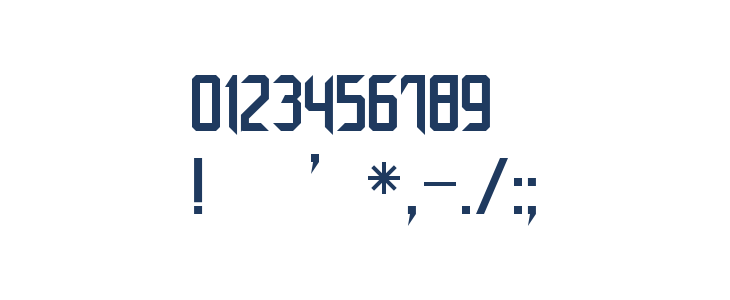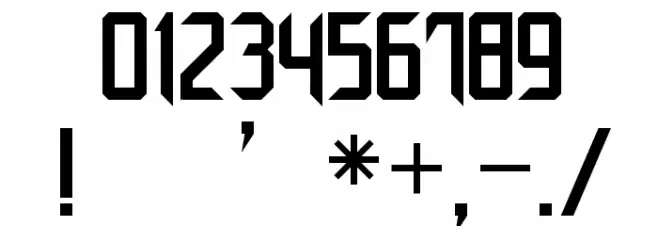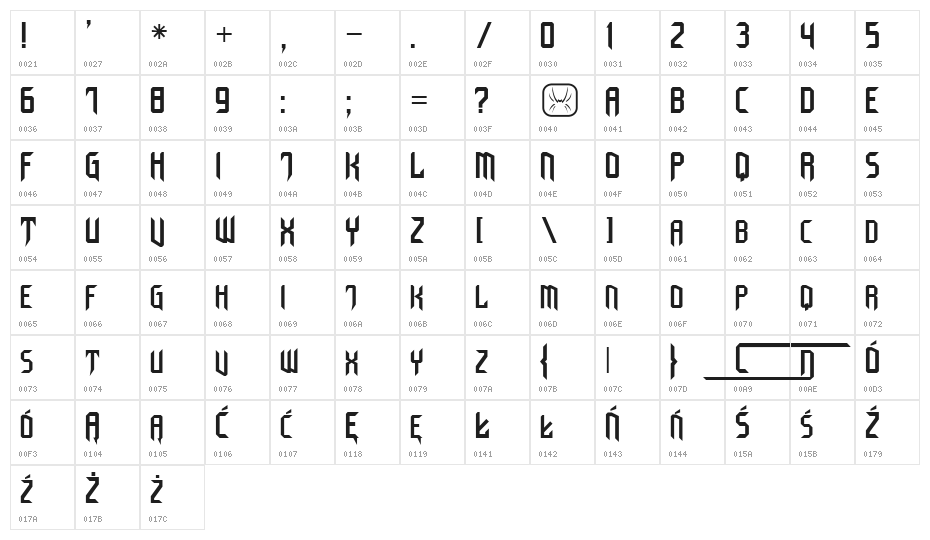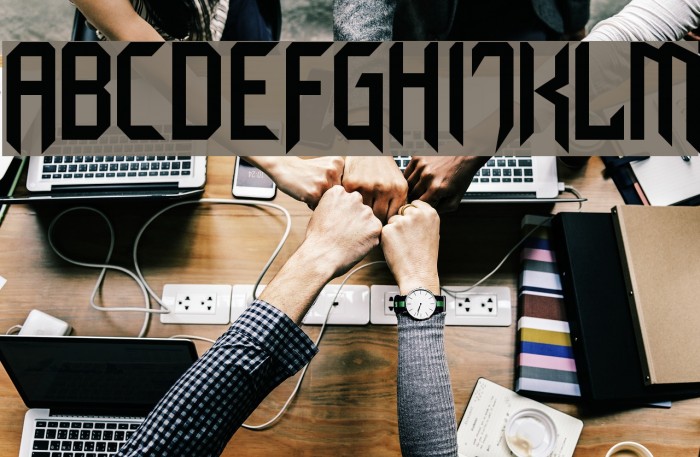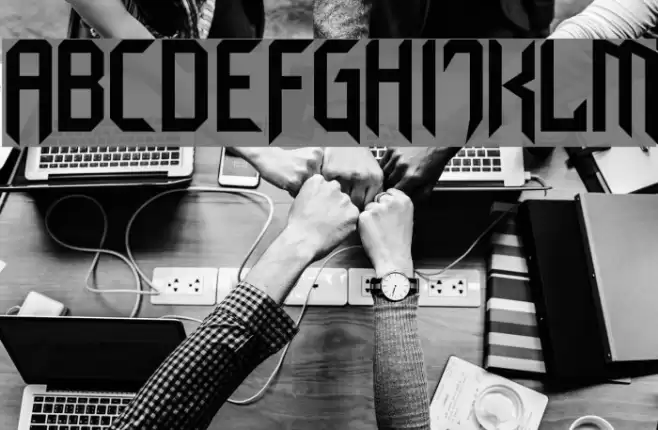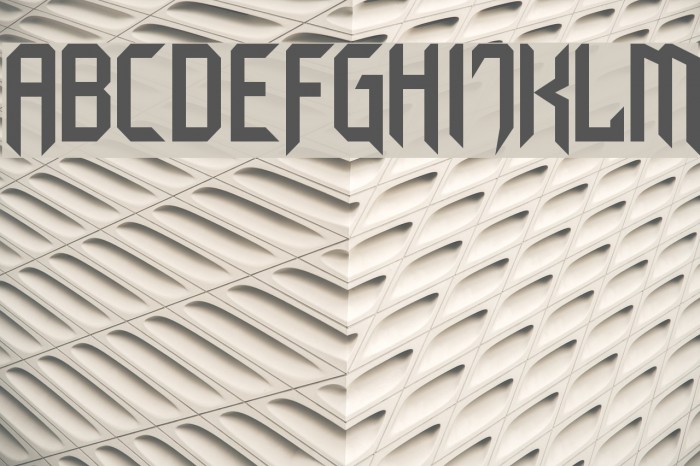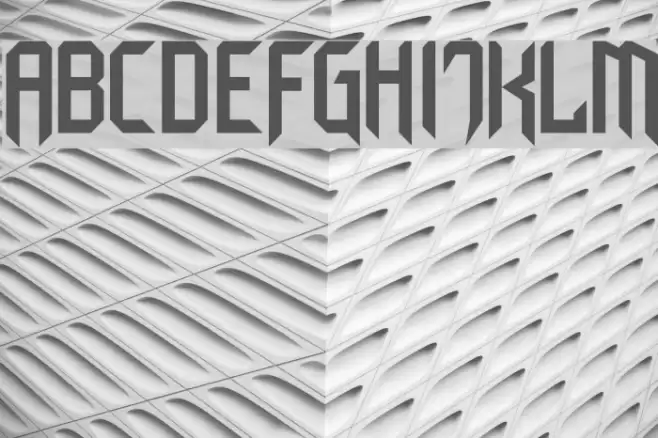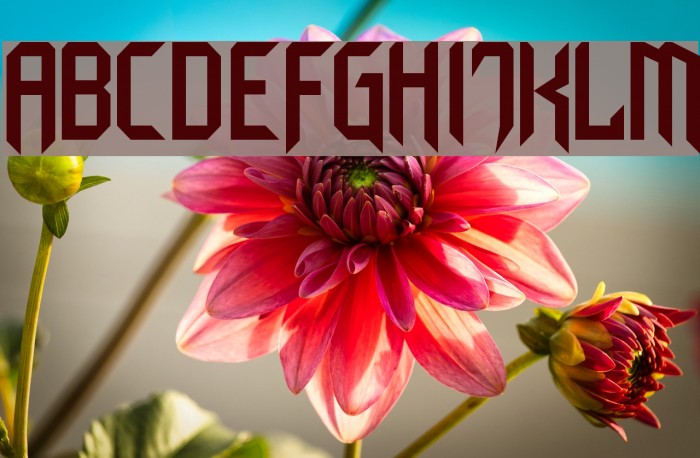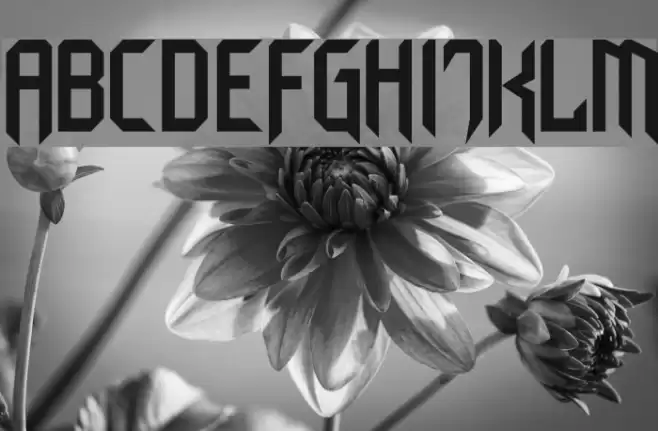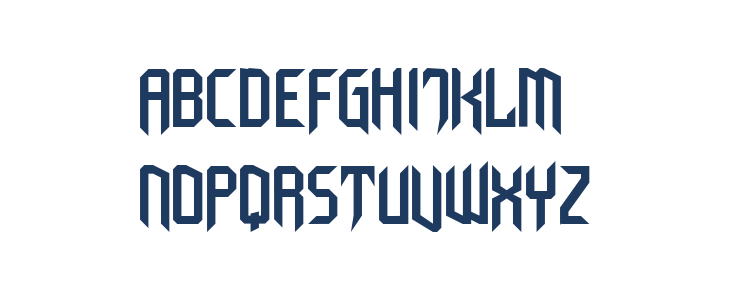
Cyberchild CE Font
Cyberchild CE Description
This font features a futuristic and angular design, characterized by sharp edges and geometric shapes. The uppercase letters are bold and striking, with a consistent height and width that gives them a uniform appearance. The lowercase letters maintain the same angular style, creating a cohesive look across all characters. Numbers are similarly designed, with a focus on symmetry and balance. Special characters are integrated seamlessly, maintaining the overall aesthetic. This font is ideal for projects that require a modern and edgy feel, making it suitable for technology-related themes or creative branding.